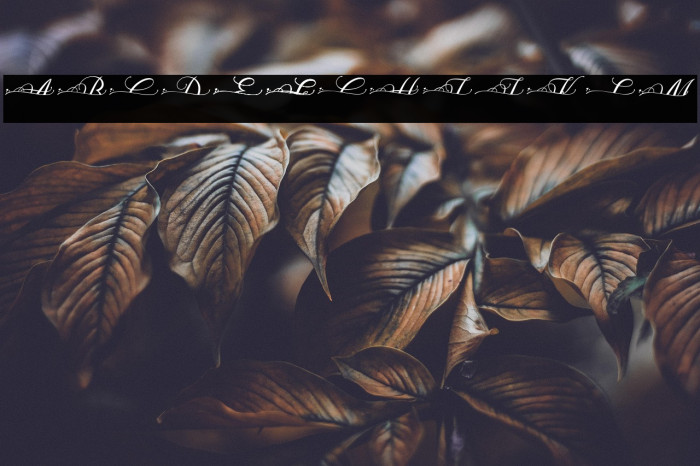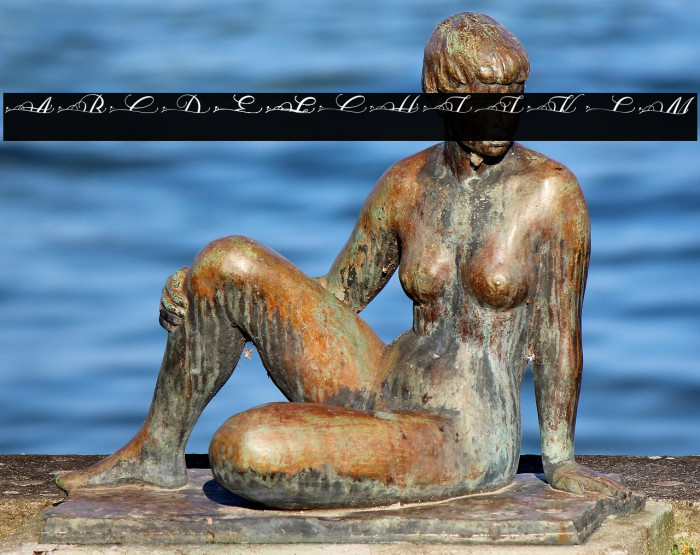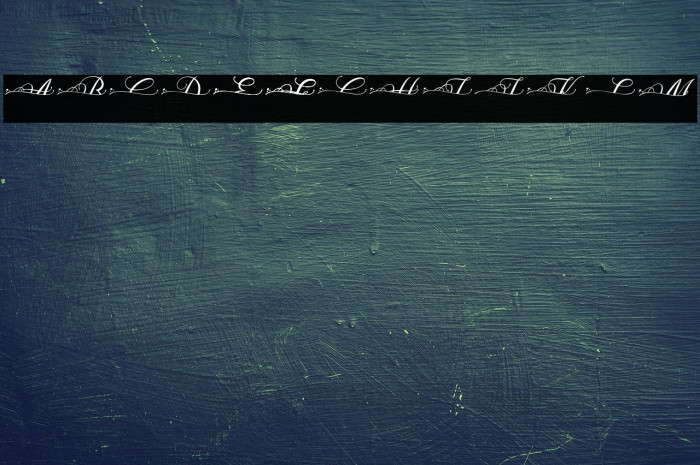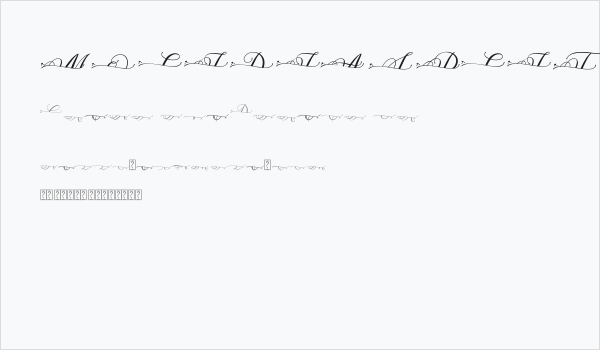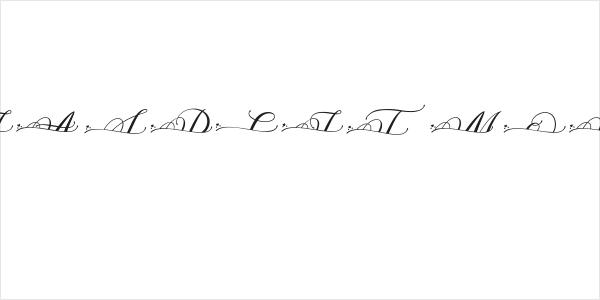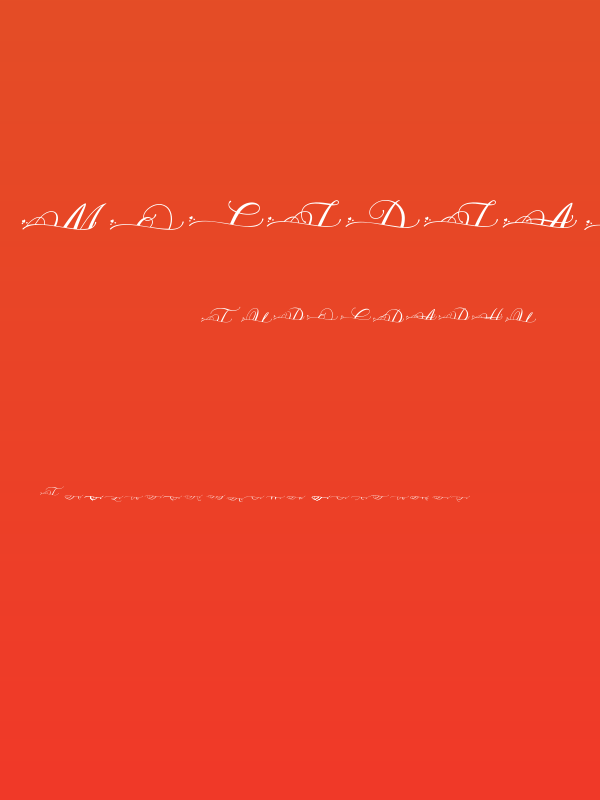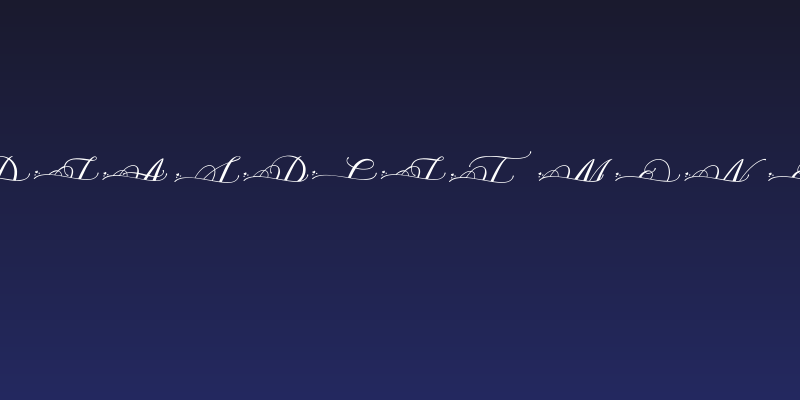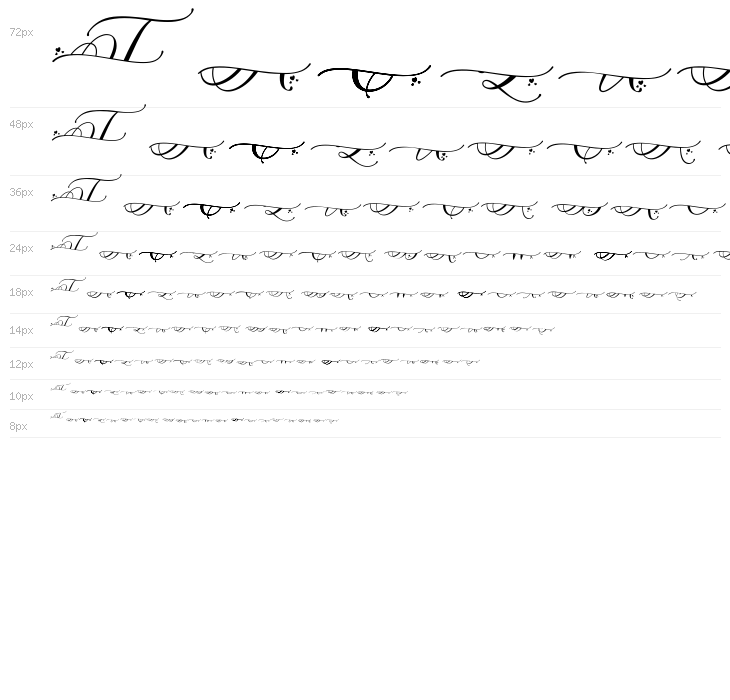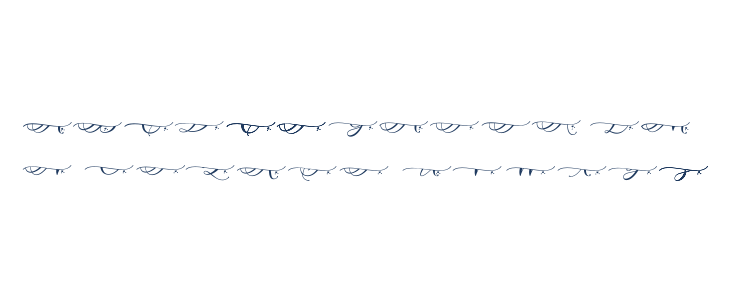
MOLIDIA SPLIT MONOGRAM Font
MOLIDIA SPLIT MONOGRAM Description
This font features an elegant and intricate script style, characterized by its flowing and interconnected letterforms. Each character is adorned with delicate swirls and flourishes, giving it a sophisticated and decorative appearance. The uppercase letters are particularly ornate, with exaggerated loops and curves that create a sense of movement and grace. The lowercase letters maintain a consistent style, complementing the uppercase with their own subtle embellishments. The font's overall aesthetic is reminiscent of classic calligraphy, making it suitable for formal and artistic applications.
| Proposed Projects | Ideal for wedding invitations, luxury branding, greeting cards, and decorative monograms. |